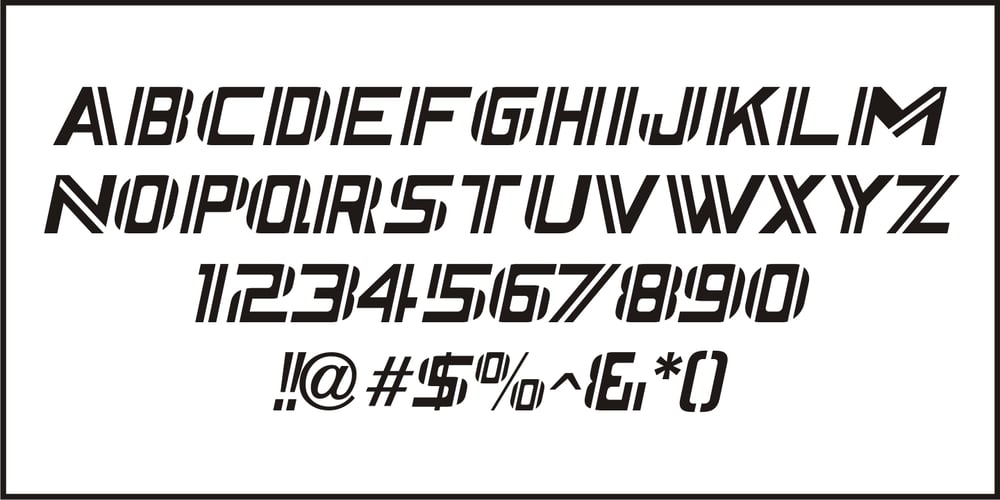
Woodline
Woodline font
Woodline Font Family was designed by Jeff Levine and published by Jeff Levine. Woodline contains 2 styles and family package options. Most folks might picture wood type lettering as the fancy styles of the 1880s which so perfectly evoked images of the Old West. Occasionally there is an exception to that rule, as an online image of some vintage wood letters with an Art Deco influence inspired a revival as a digital type face. Wood Lined JNL features a bold alphabet with an engraved line throughout the characters, and is available in both regular and oblique versions.